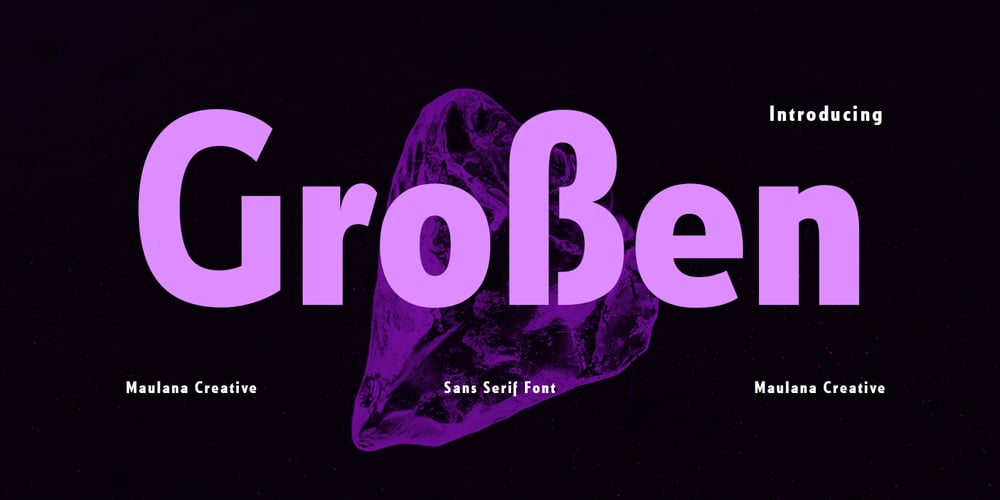
MC Grossen Font Family was designed by Gilang Maulana and published by Maulana Creative. MC Grossen contains 1 styles and family package options. Grossen/Großen is a Classic Contemporary Sans font. Regular stroke, fun character with a bit of ligatures and alternates. To give you an extra creative work. Grossen/Großen font support multilingual more than 100+ language. This font is good for logo design, Social media, Movie Titles, Books Titles, a short text even a long text letter and good for your secondary text font with script or serif. Make a stunning work with Grossen/Großen font. Cheers, Maulana Creative